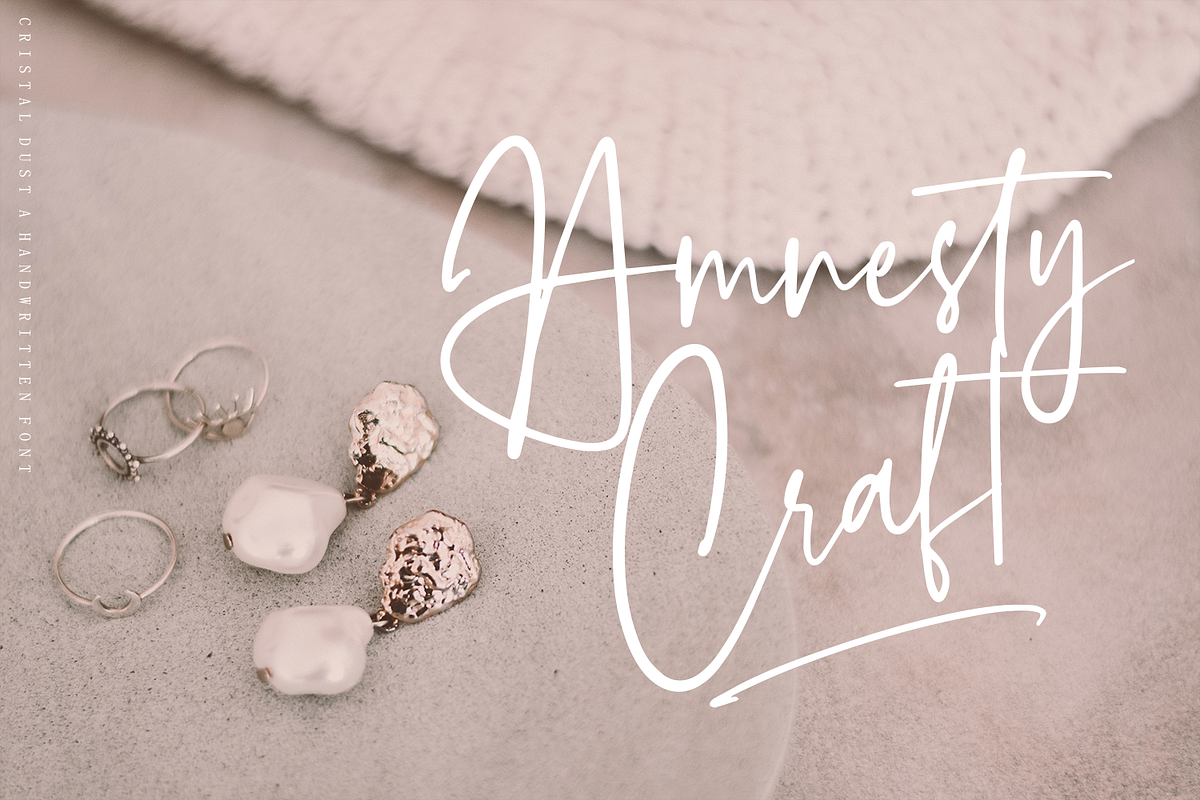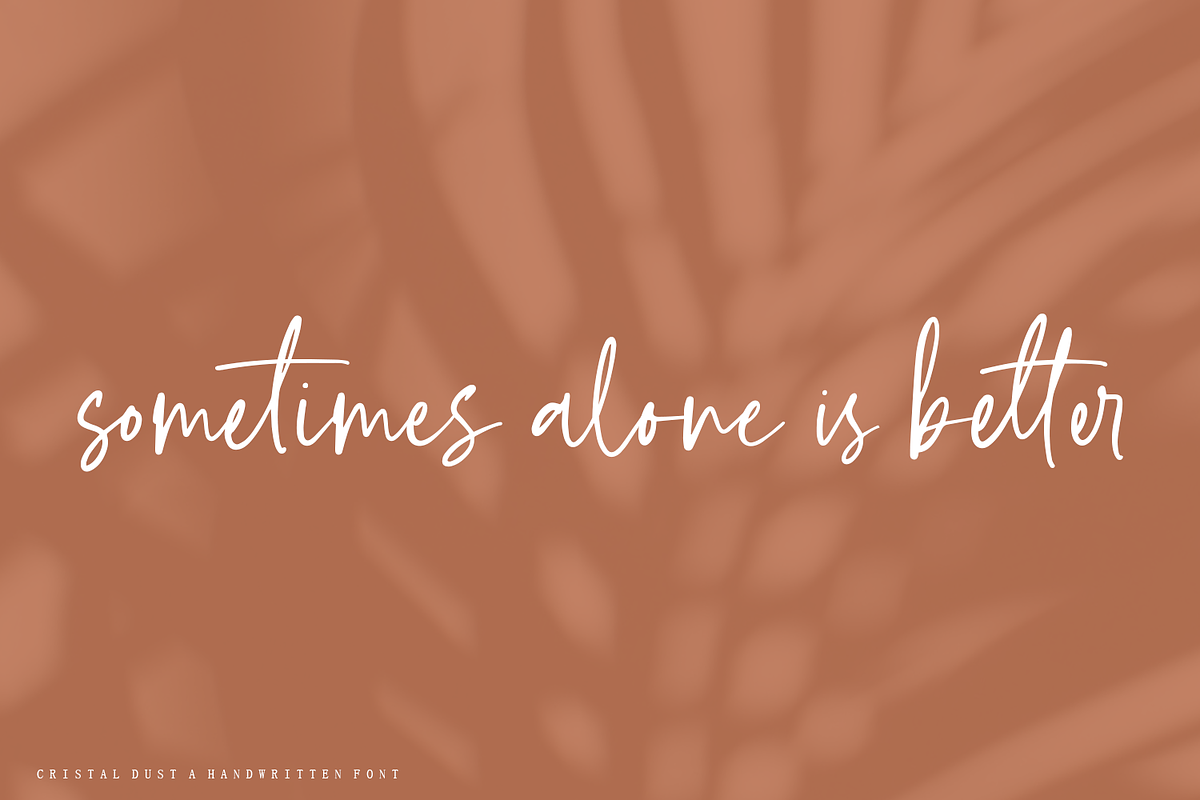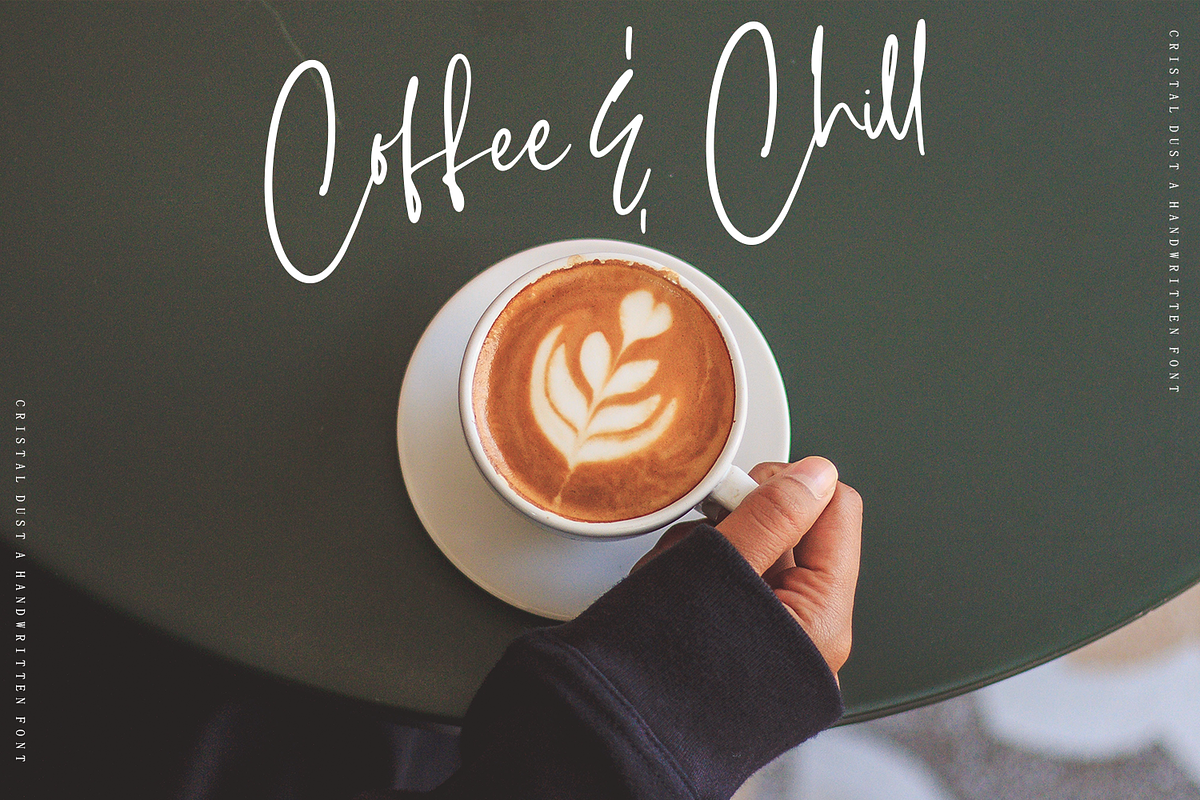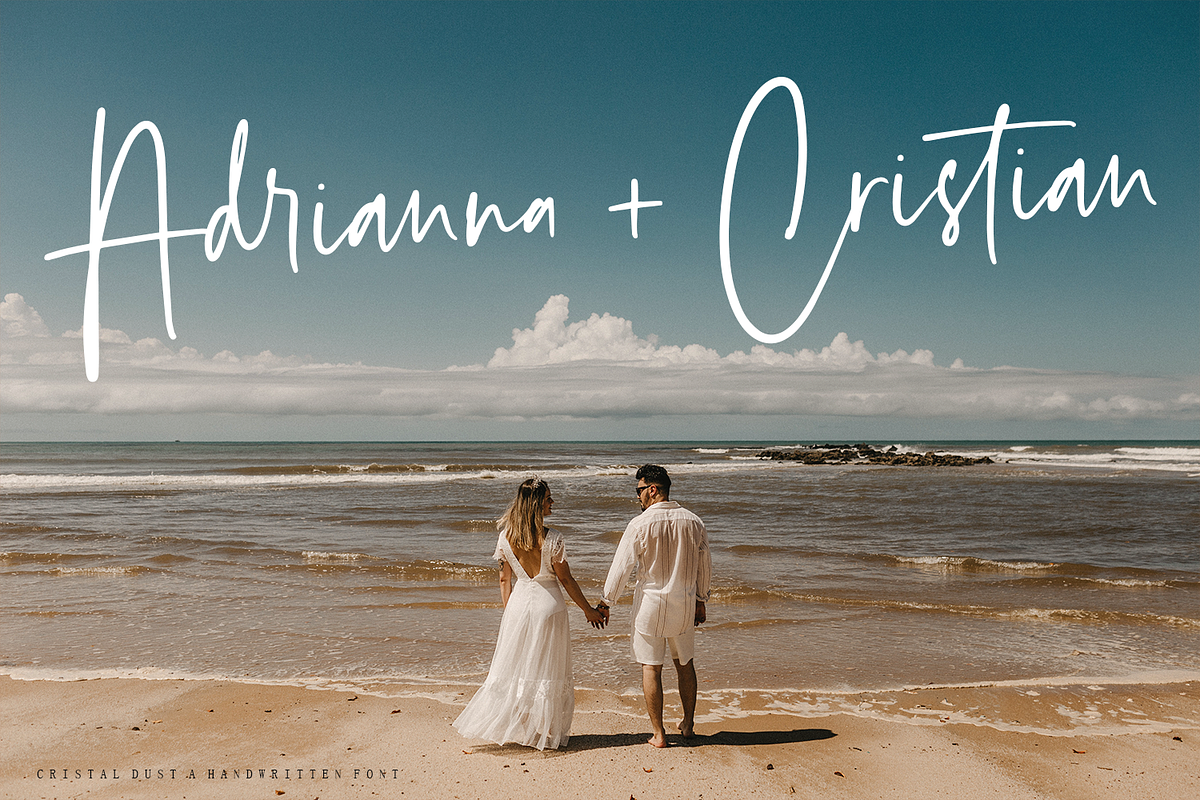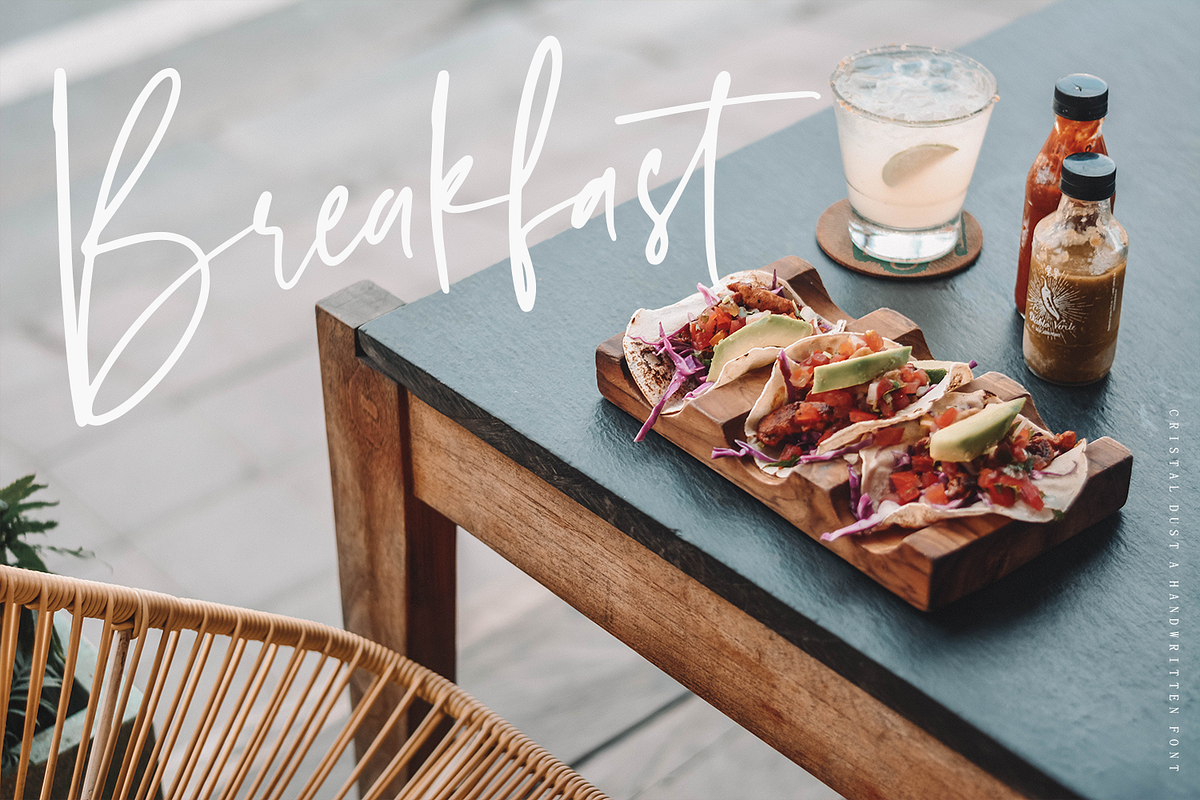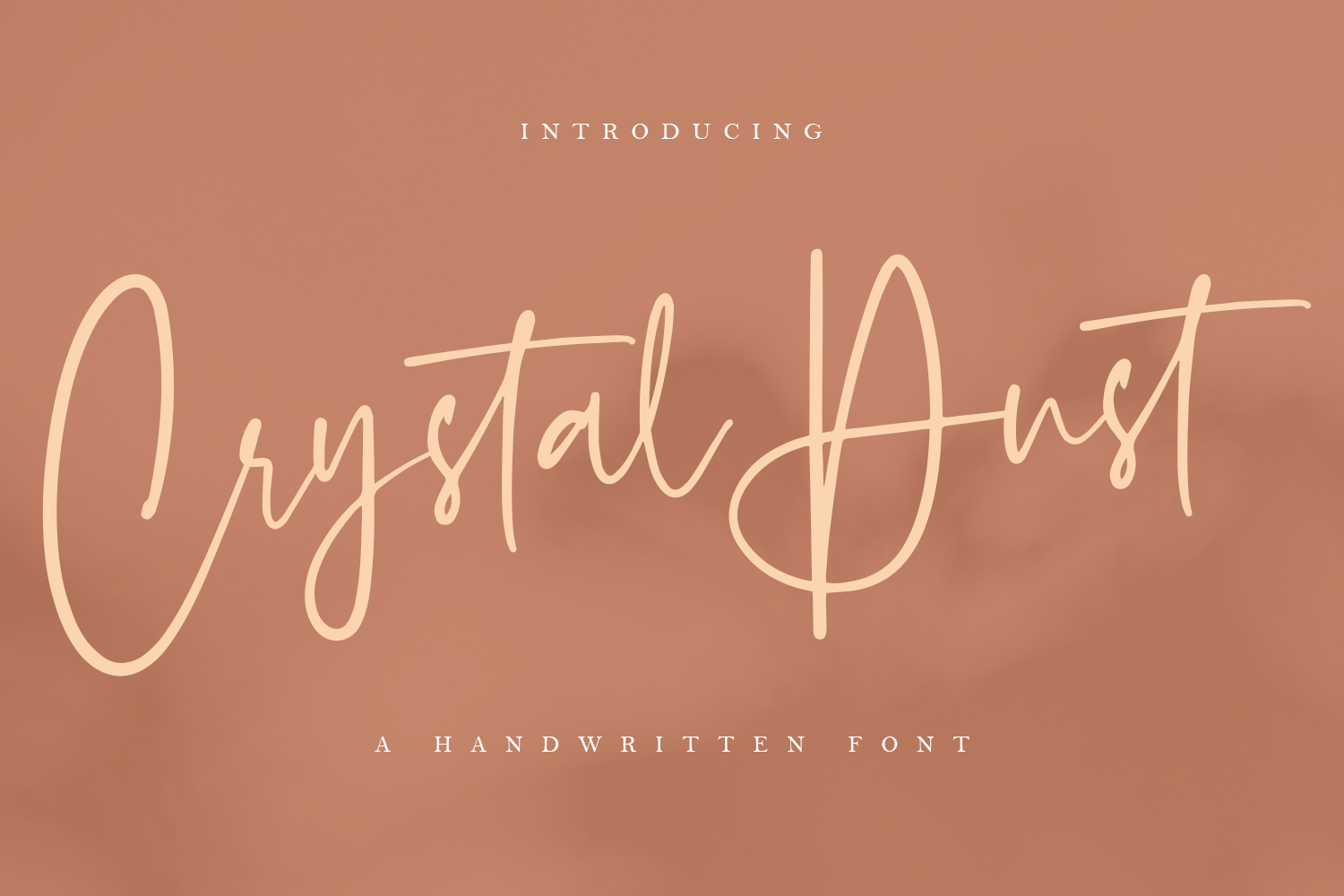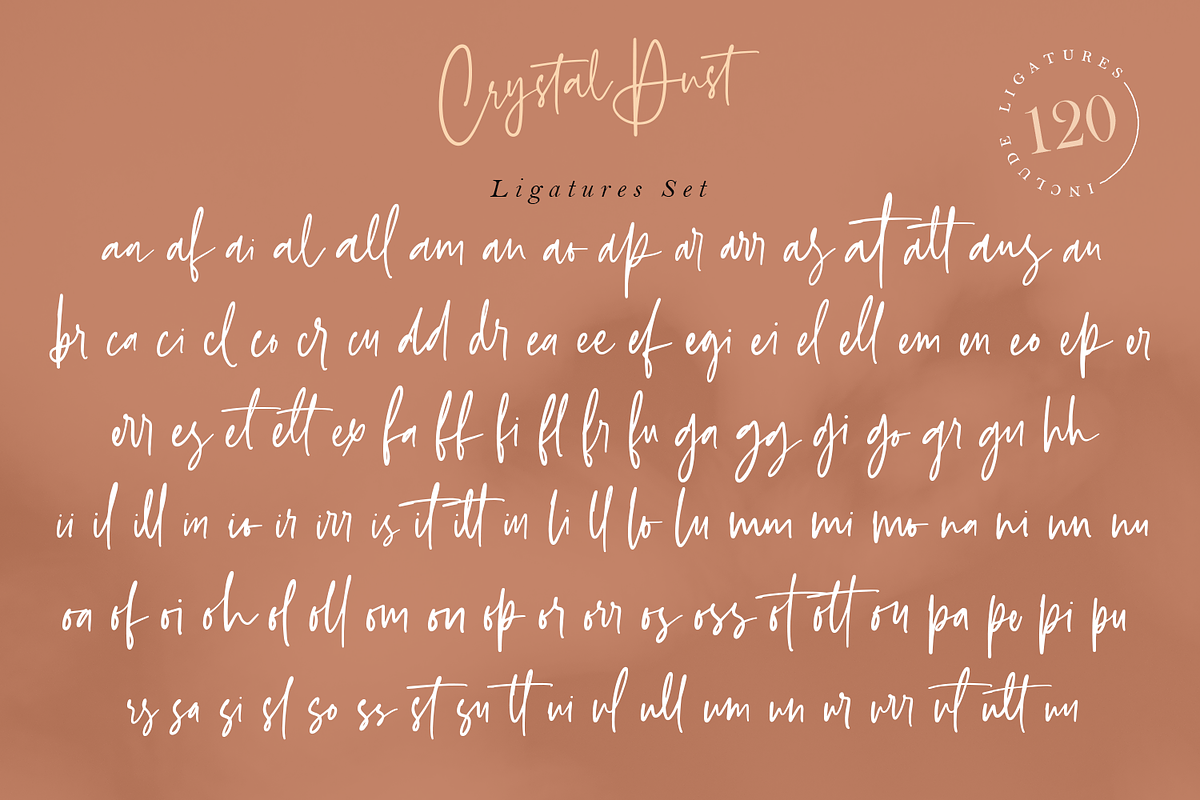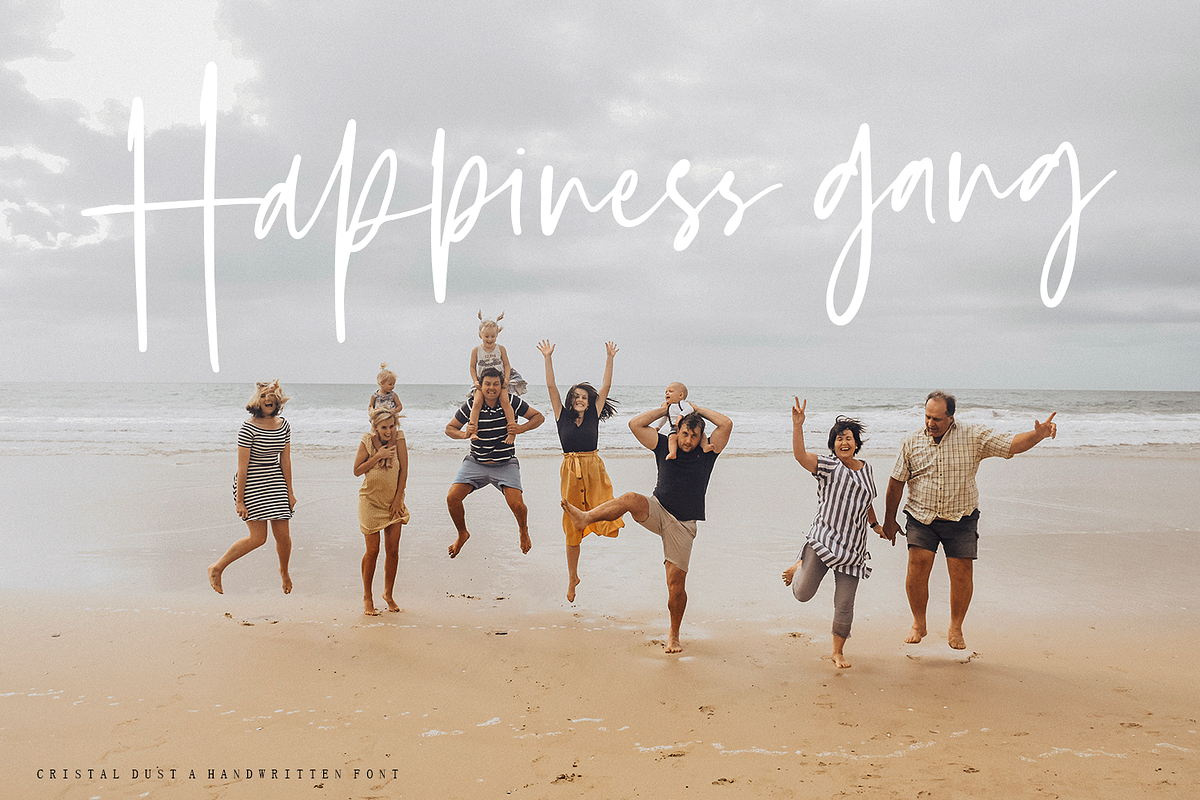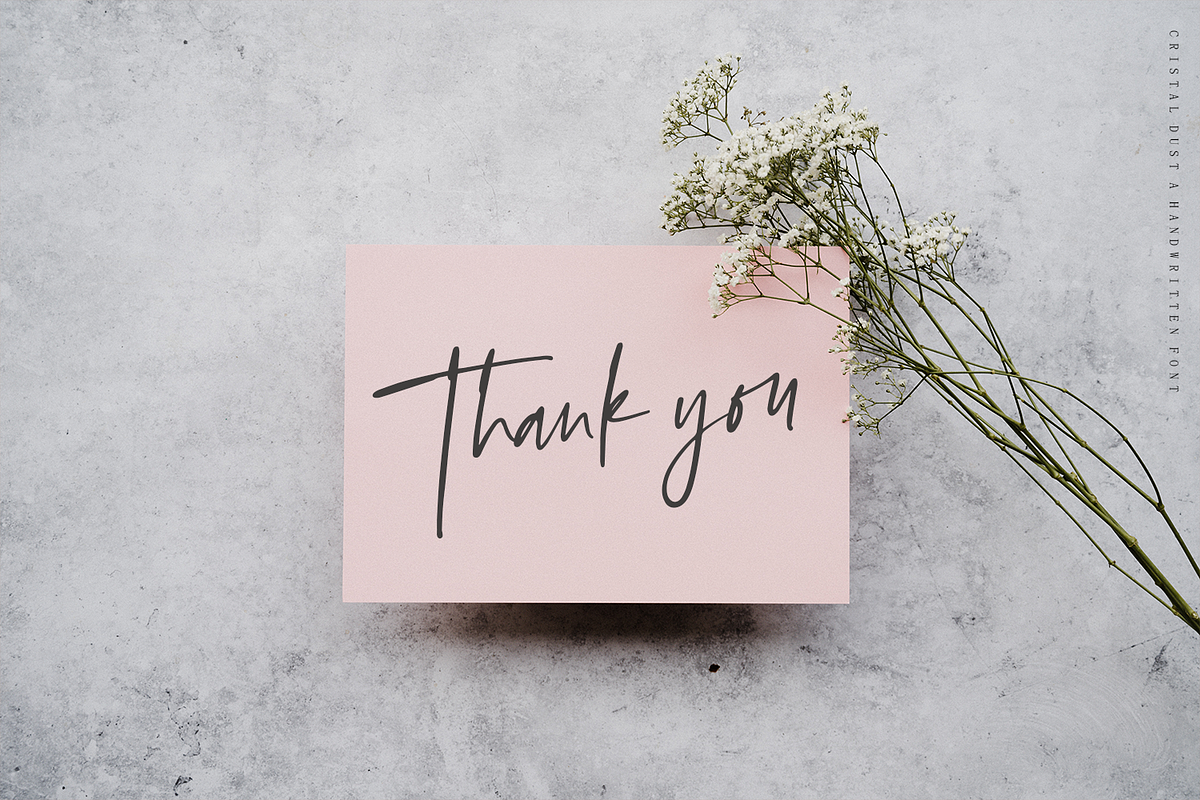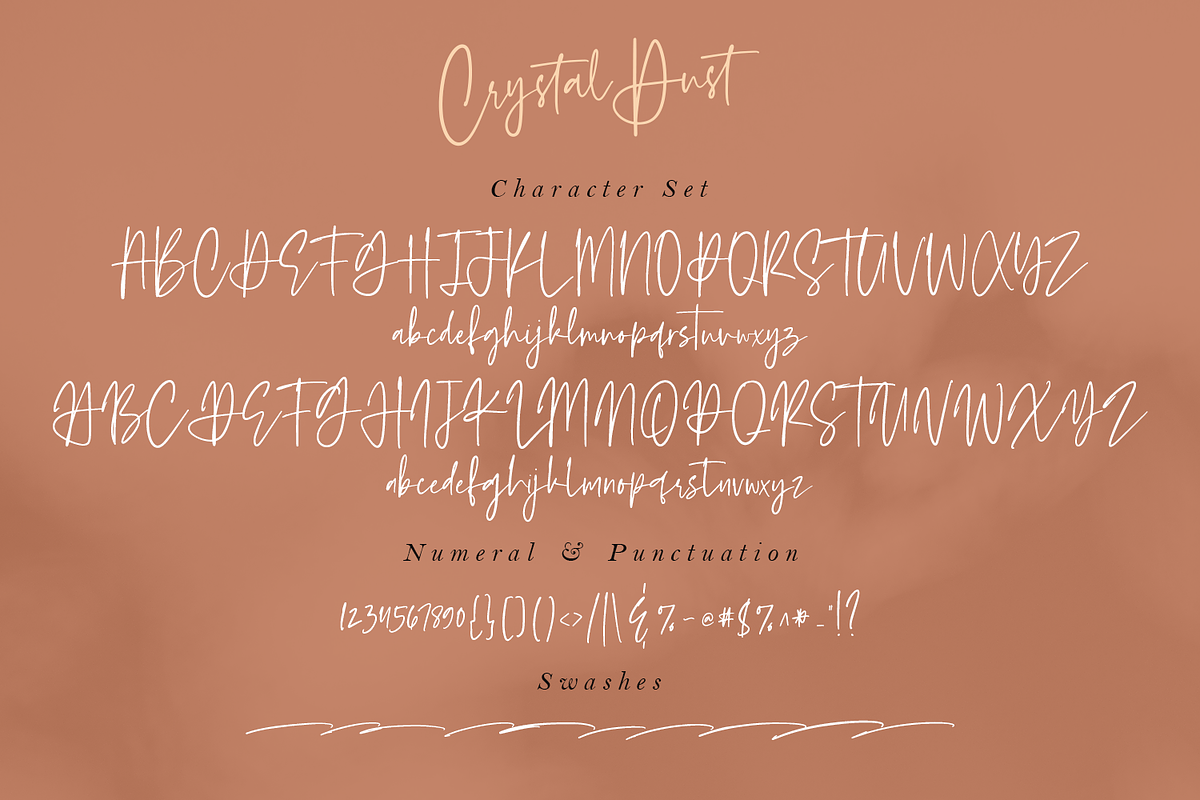
Crystal Dust - Handwritten Font
Hello everyone, I want to launch a new font Crystal Dust a Handwritten with a modern script style. This font is made with a brush pen to produce perfect handwriting.
Crystal Dust has a total of 2 uppercase alternatives and 2 lowercase alternatives that you can change as you wish. This font is also available with the slant version, and I added 120+ ligatures that are automatically installed when you write something.
Crystal Dust can be used for various projects such as stationery invitations, social media, logos, weddings, branding, graphic design to support the project you want to work on.